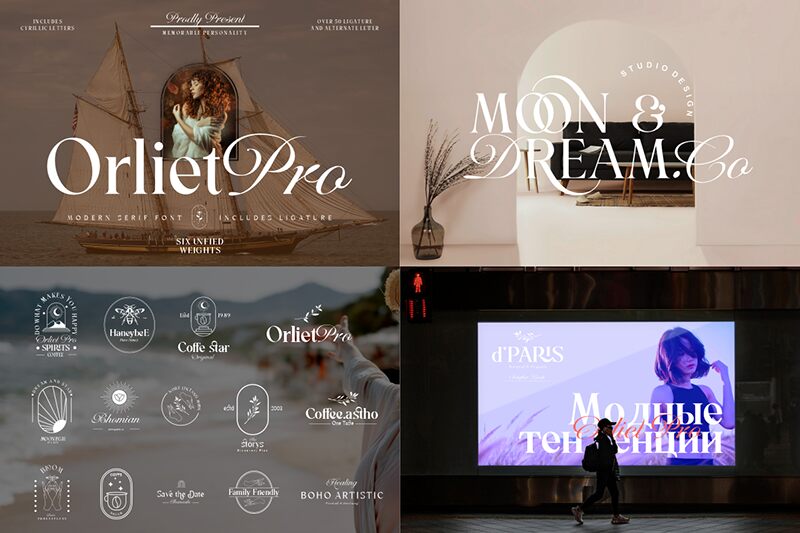
Orliet Pro font family by Joko Setiono is a free serif font family consisting of 5 font styles. Orliet Pro brings elegance and sophistication to any typography design with its intrinsic neat style inspired by universal shapes and geometric concepts. Within its flawless letterforms, this incredible font covers all the bases needed for your typography design, all packaged in a single font family with different weights and a variable thickness curve. Customize its weights however you prefer by combining its regular multi-layered letter shapes in your projects.
Display all your texts in style using Orliet Pro, and bring the superior touch to your editorial layouts, invitations cards design, website UI design, and more! It also suits logo design, poster design, magazine covers, art wrapping… and so much more!